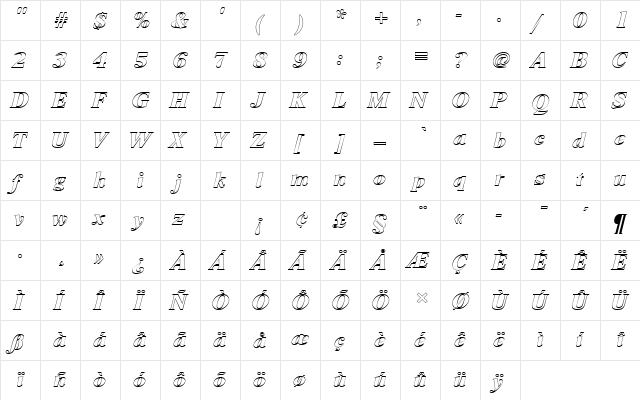
NimbusRomDExtBolItaOu1 Regular Font Preview
NimbusRomDExtBolItaOu1 Regular
NimbusRomDExtBolItaOu1 Regular Font Details
Design Context for NimbusRomDExtBolItaOu1 Typeface
NimbusRomDExtBolItaOu1 takes a measured approach to typography — its balanced proportions and neutral character make it a reliable workhorse for both digital and print work.